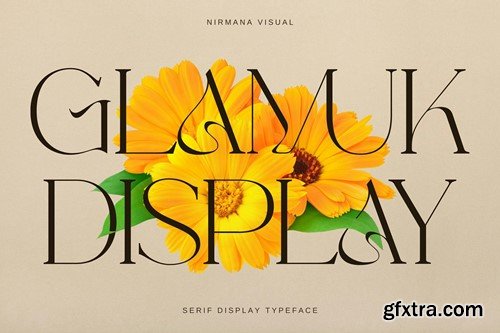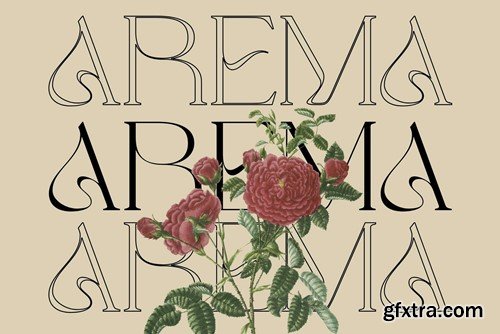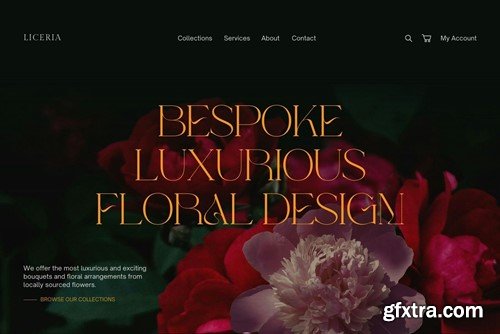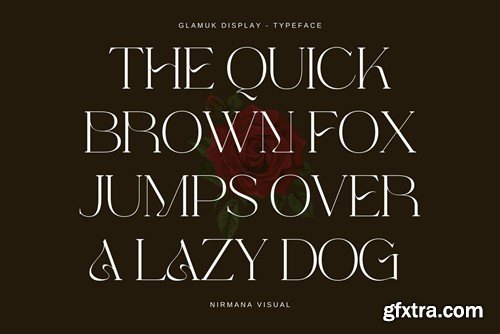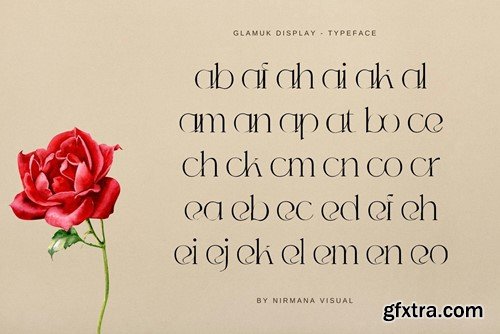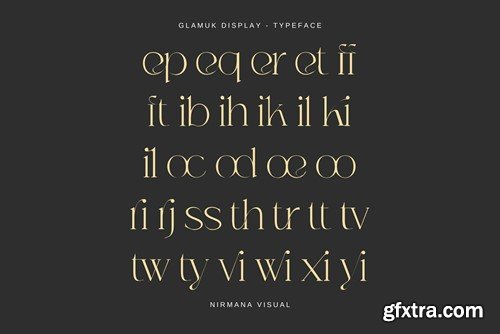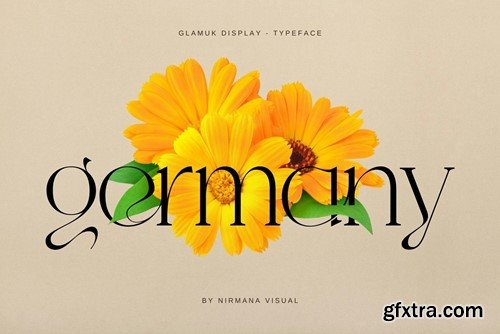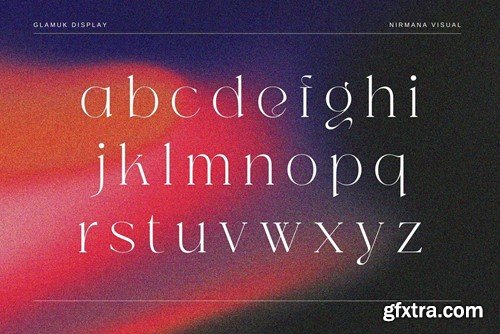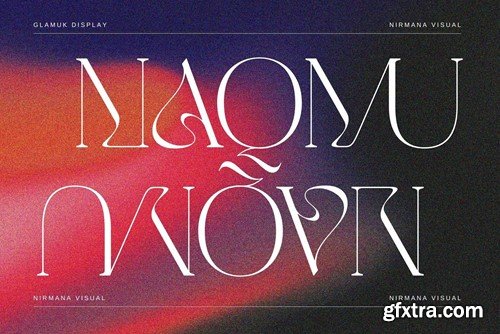
Glamuk Display - 字体 JK3R2EQ
Glamuk Display - Logo Font JK3R2EQ
Glamuk Display - Logo Font
Glamuk Display offers beautiful typographic harmony for a diversity of design projects, including logos & branding, social media posts, advertisements & product designs.